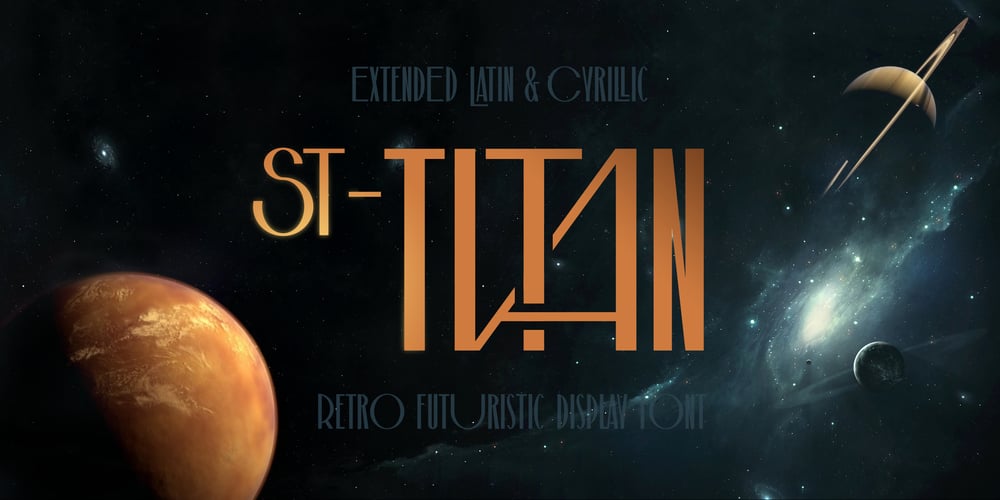
ST Titan Font Family was designed by Alexander Shimanov and published by ShimanovTypes. ST Titan contains 1 styles and family package options. ST Titan is a retro futuristic display font with vintage vibes, inspirated by old sci-fi book’s headers and posters. It’s good for social media, headlines, large-format print, branding, posters, fashion designs and websites.Extended Latin and Cyrillic support.30+ languages